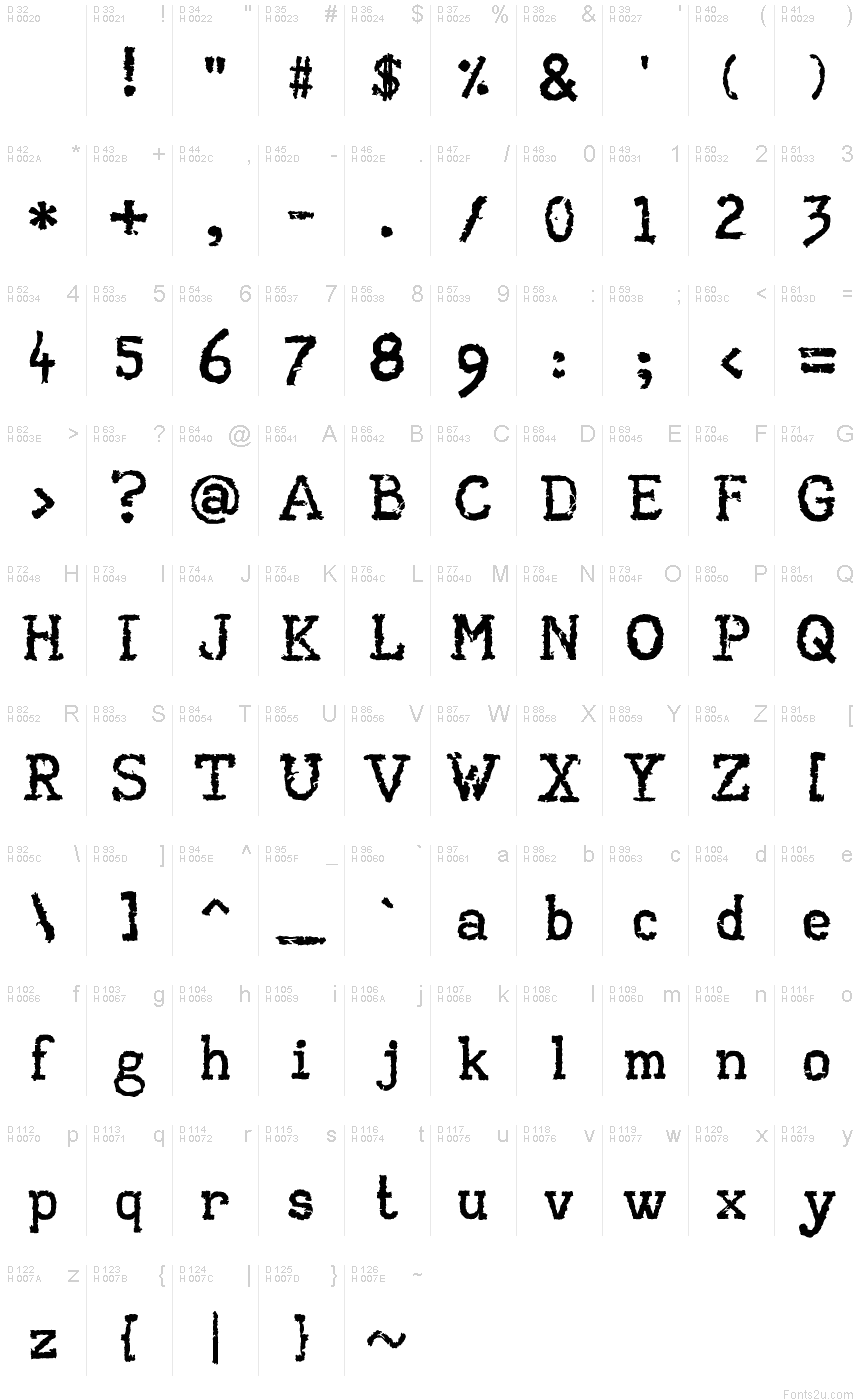
AA Typewriter
This font is based on an old american typewriter combined with modern clear lines that make it readable in small sizes. It includes the full Latin1 and MacOS Roman character set.